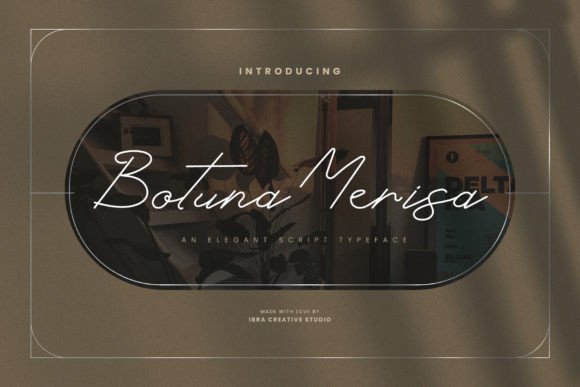
Where Elegance Meets Typography: The Botuna Merisa Font
Have you ever stumbled upon a font that instantly transports you to a world of luxury and refinement? For me, that moment came when I first laid eyes on the Botuna Merisa Font. Its fluid and refined letterforms seemed to whisper sweet nothings of classic charm and timeless beauty.
As a designer, I know how crucial the right font can be in elevating a project’s aesthetic. That’s exactly what Botuna Merisa Font does – it adds a touch of opulence and sophistication to any design, making it perfect for high-end branding, wedding invitations, and upscale packaging. Whether you’re working on a fashion, beauty, or luxury lifestyle project, Botuna Merisa Font is an invaluable asset that’s sure to leave a lasting impression.
Botona Merisa Font Key Features
• Font Family: Botona Merisa, with multiple styles available, including Regular, Italic, Bold, and Bold Italic.
• Unique Characteristics: Botona Merisa features a unique blend of modern and traditional design elements, with a distinctive aesthetic that sets it apart from other fonts.
Botuna Merisa Font Review
Overall, I found the Botuna Merisa font to be a beautiful addition to any design project. ✨ The elegant curves and delicate strokes evoke a sense of sophistication and refinement, making it perfect for high-end branding and luxury materials.
The font’s versatility is another major strength. ✨ It works well in both display and text settings, and its variable font format allows for seamless adaptation to different screen sizes and resolutions. Additionally, the font’s comprehensive language support makes it a great choice for global brands.
However, there are some limitations to consider. ⚠️ The font may not be the best choice for body copy due to its relatively low readability at smaller sizes. Additionally, some users may find the font’s flair and ornamentation to be overbearing or too trendy.
Here are some key features to keep in mind:
• Elegant curves and delicate strokes
• Variable font format for seamless adaptation
• Comprehensive language support
• May not be suitable for body copy at smaller sizes
• May be too trendy for some users
Overall, I would recommend the Botuna Merisa font for designers looking to add a touch of luxury and sophistication to their projects. Just be mindful of its limitations and use it judiciously.
Getting the Most Out of Botuna Merisa Font
For the best results, use Botuna Merisa Font in combination with bold or italic styles to add emphasis to your text. You can also experiment with different font sizes and colors to create a unique visual identity.
Botuna Merisa Font is ideal for use in creative projects such as brochures, flyers, and social media graphics. It’s also a great choice for use in branding and marketing materials, such as logos and business cards.